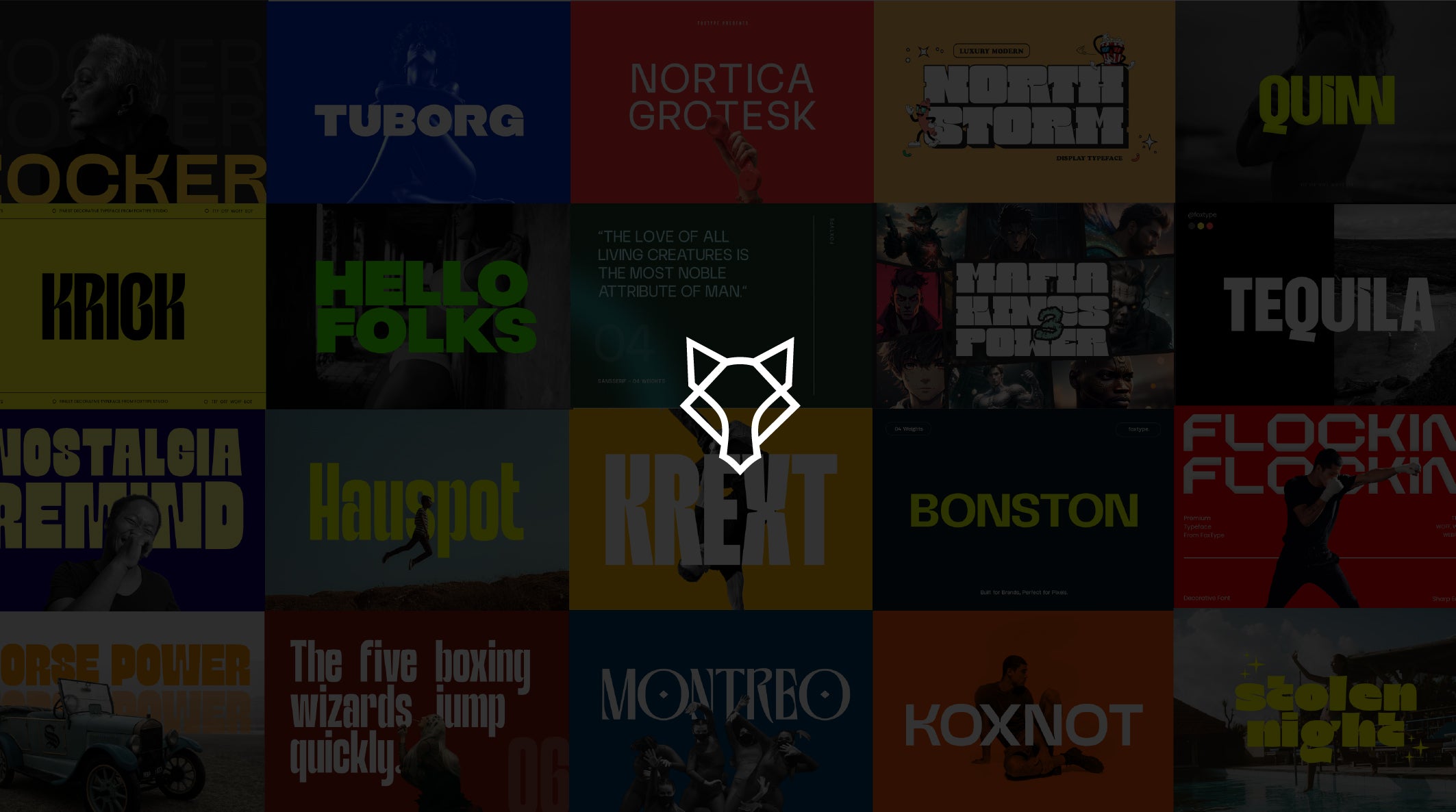
Crafting Fonts in Envato Since 2018
Founded in 2018, FoxType is an independent type foundry dedicated to crafting modern, high-quality typefaces for brands, businesses, and creative professionals worldwide.
Over the years, we have designed and released 100+ font families, serving a growing community of clients across the globe. Our work focuses on creating versatile, professional, and visually distinctive fonts that help brands communicate with clarity and confidence.
At FoxType, we specialize in sans-serif, branding, and business-focused typefaces, carefully balancing aesthetics, readability, and functionality. Every font is designed with attention to detail, ensuring exceptional performance across digital, print, advertising, packaging, and corporate branding applications.
Our typefaces have been trusted by designers, agencies, entrepreneurs, and global brands seeking typography that strengthens their visual identity and leaves a lasting impression.